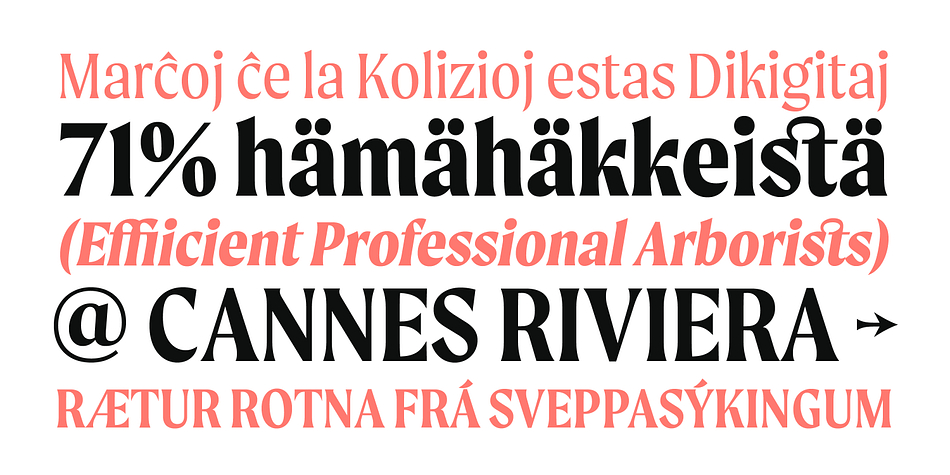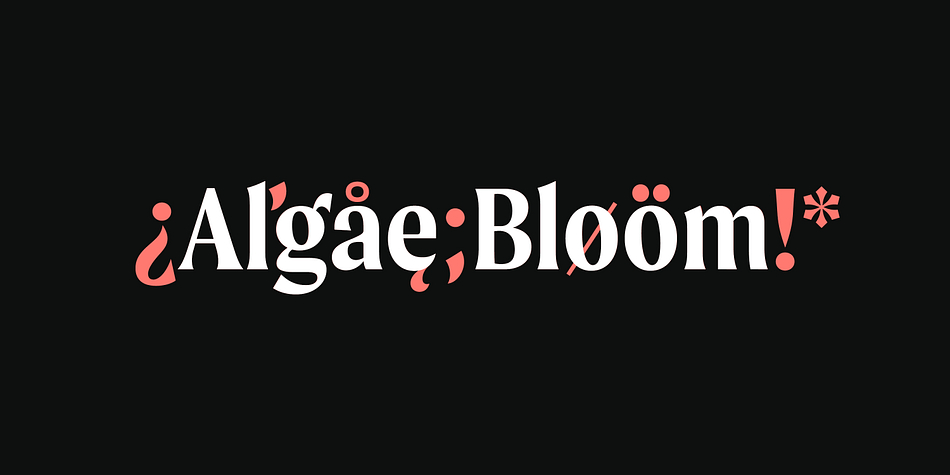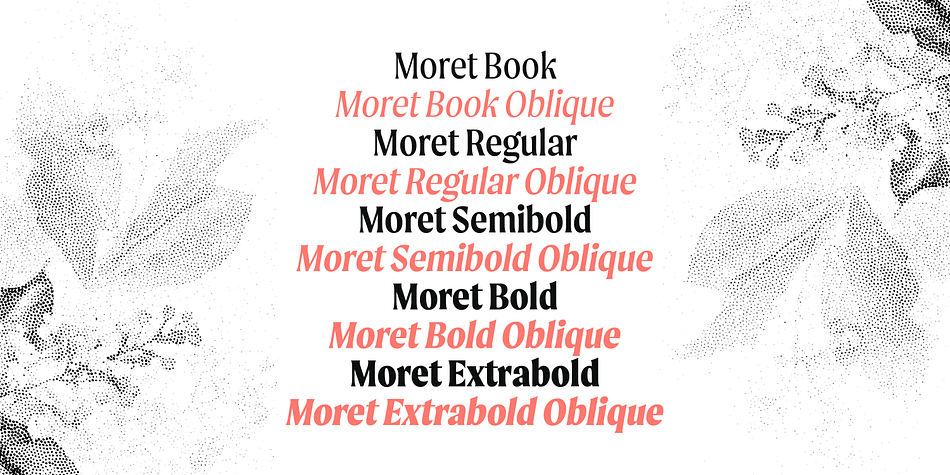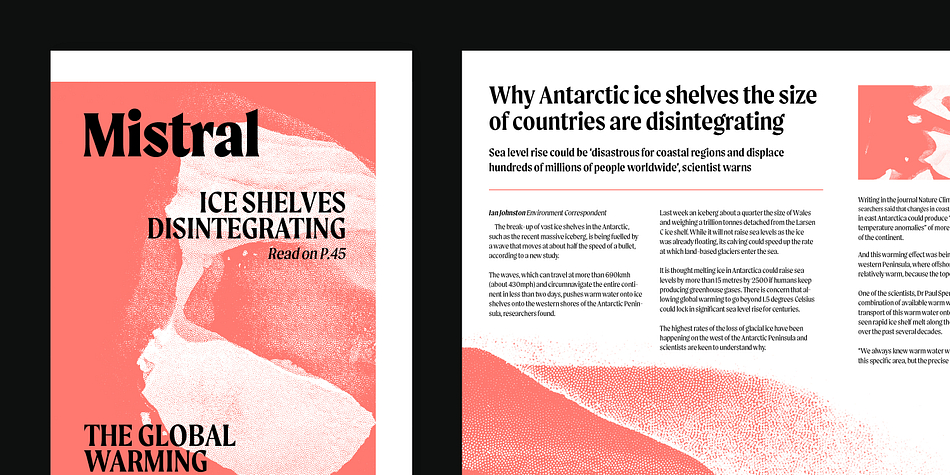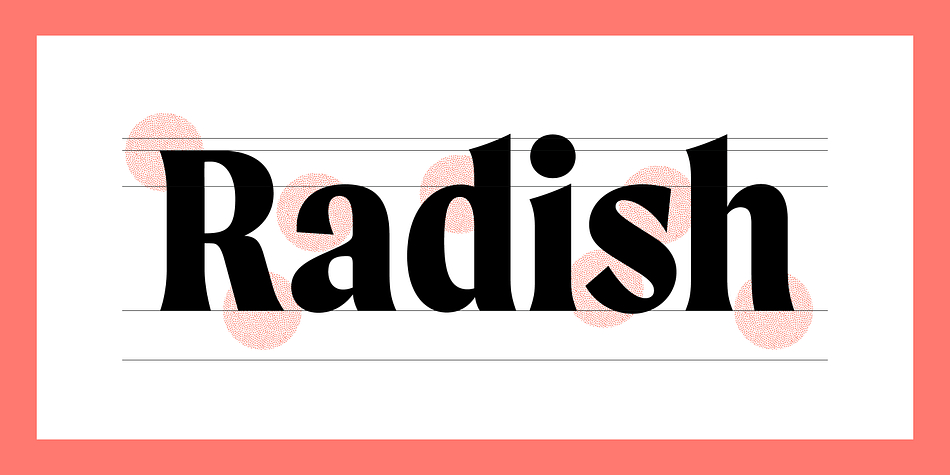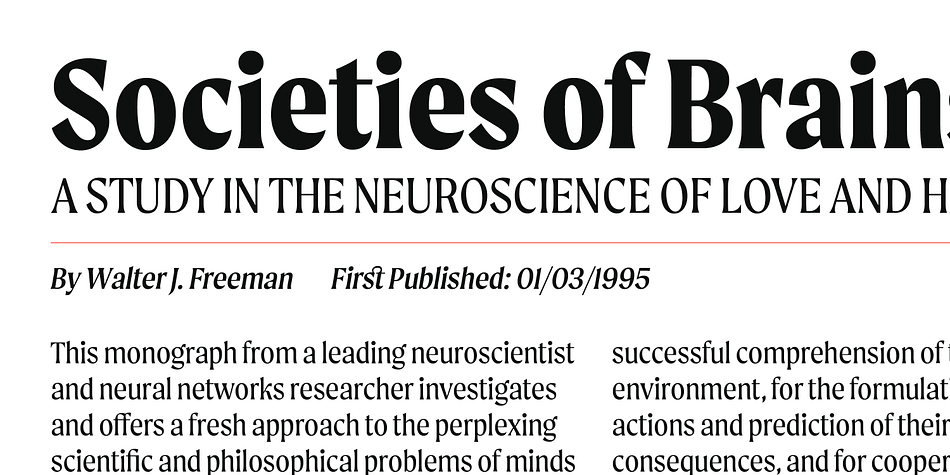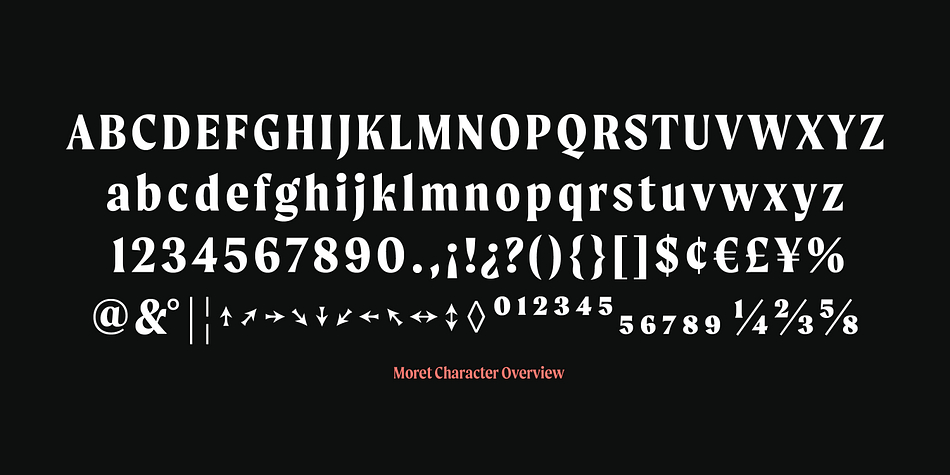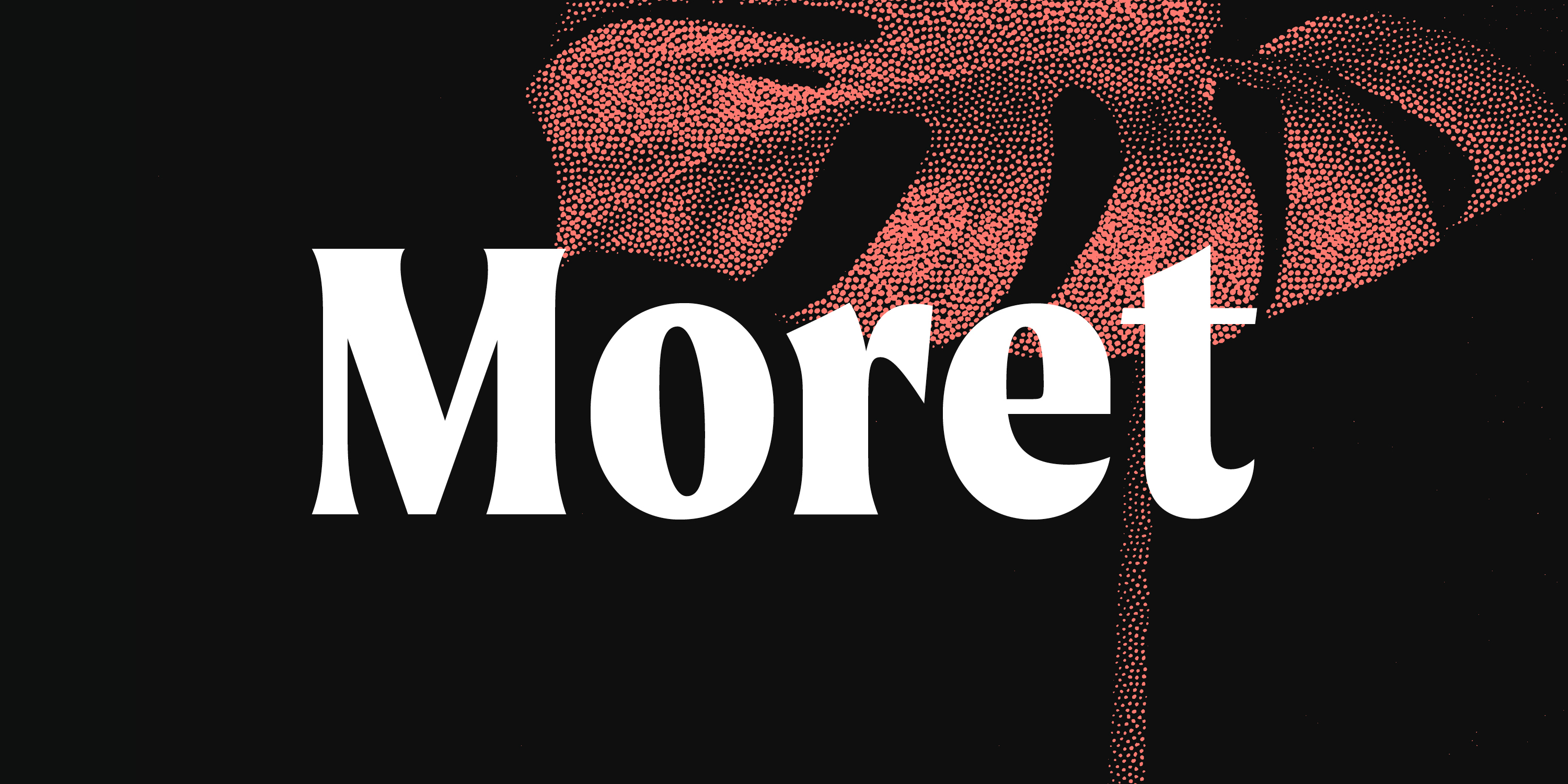
Designed by Jamie Chang, Moret is a serif font family. This typeface has ten styles and was published by The Northern Block.
Moret is a serif display type family inspired by 20th century European sign painting. It blends several calligraphic concepts to create a unique, dynamic and emphatic typeface.
Available in 5 weights and 2 styles (upright and oblique), Moret is well equipped to provide clear solutions for a variety of situations and settings such as editorials and headlines.
With 466 glyphs per font, Moret supports 94 different languages. Opentype features include inferiors, superiors, fractions, tabular figures, and ligatures.